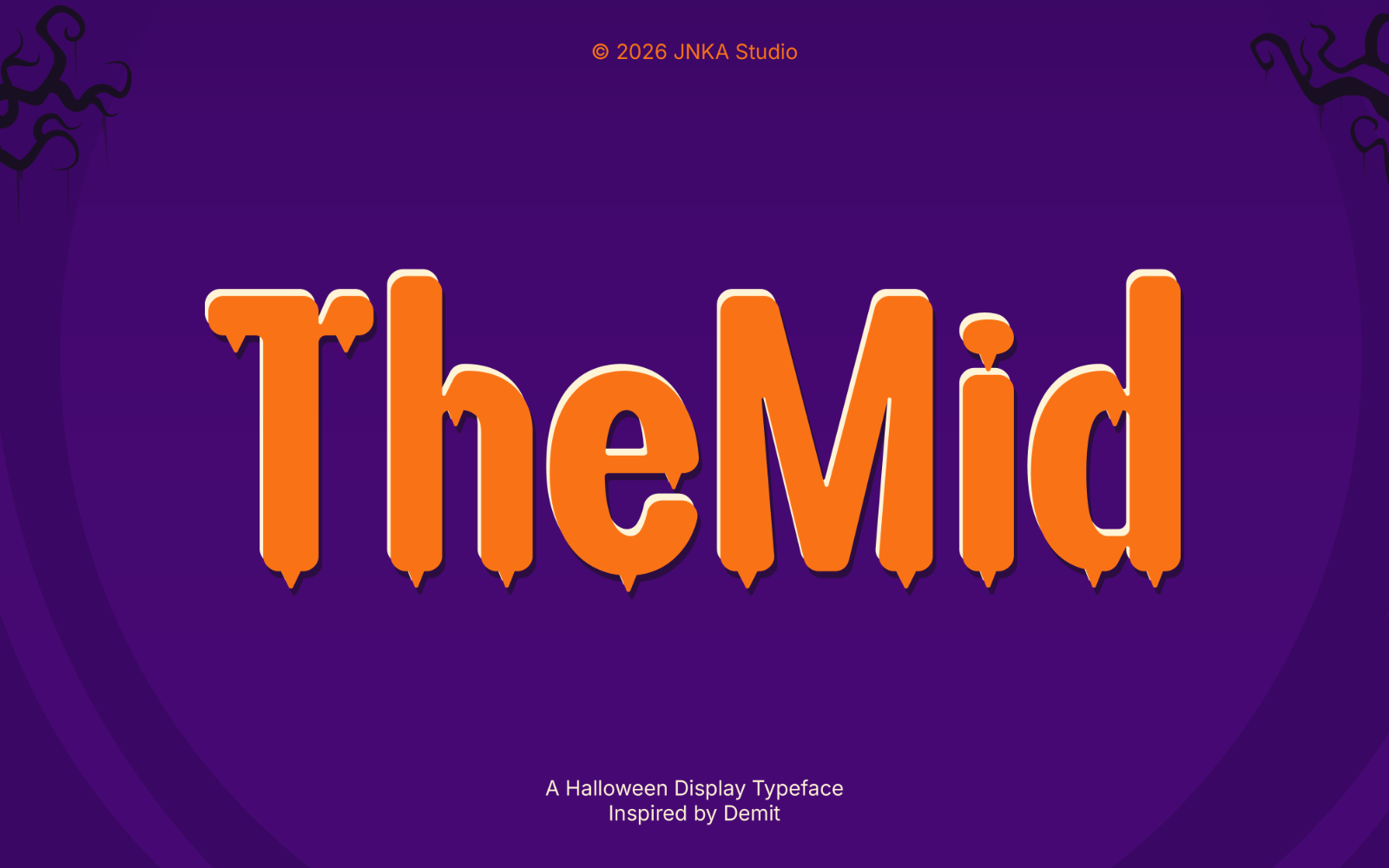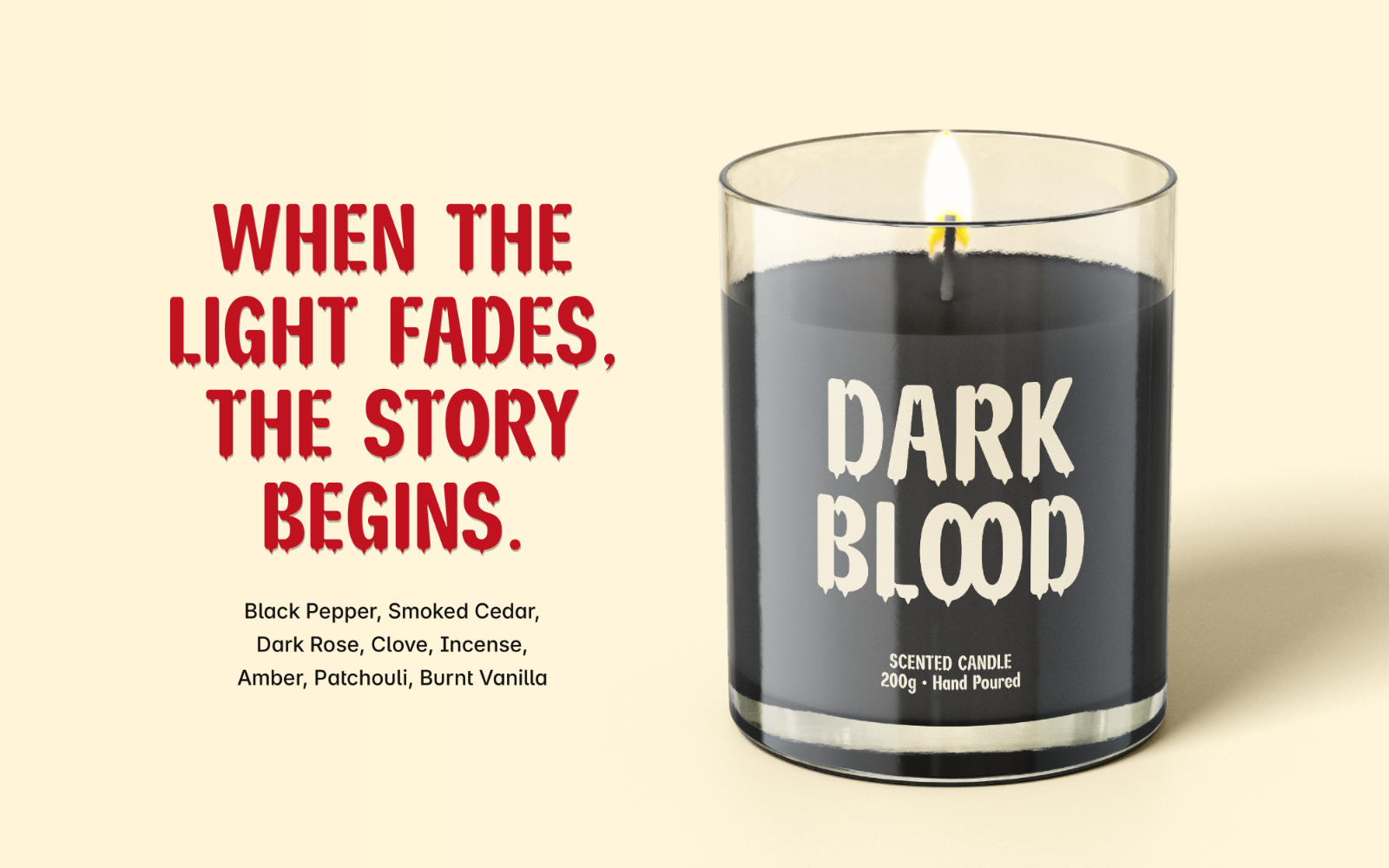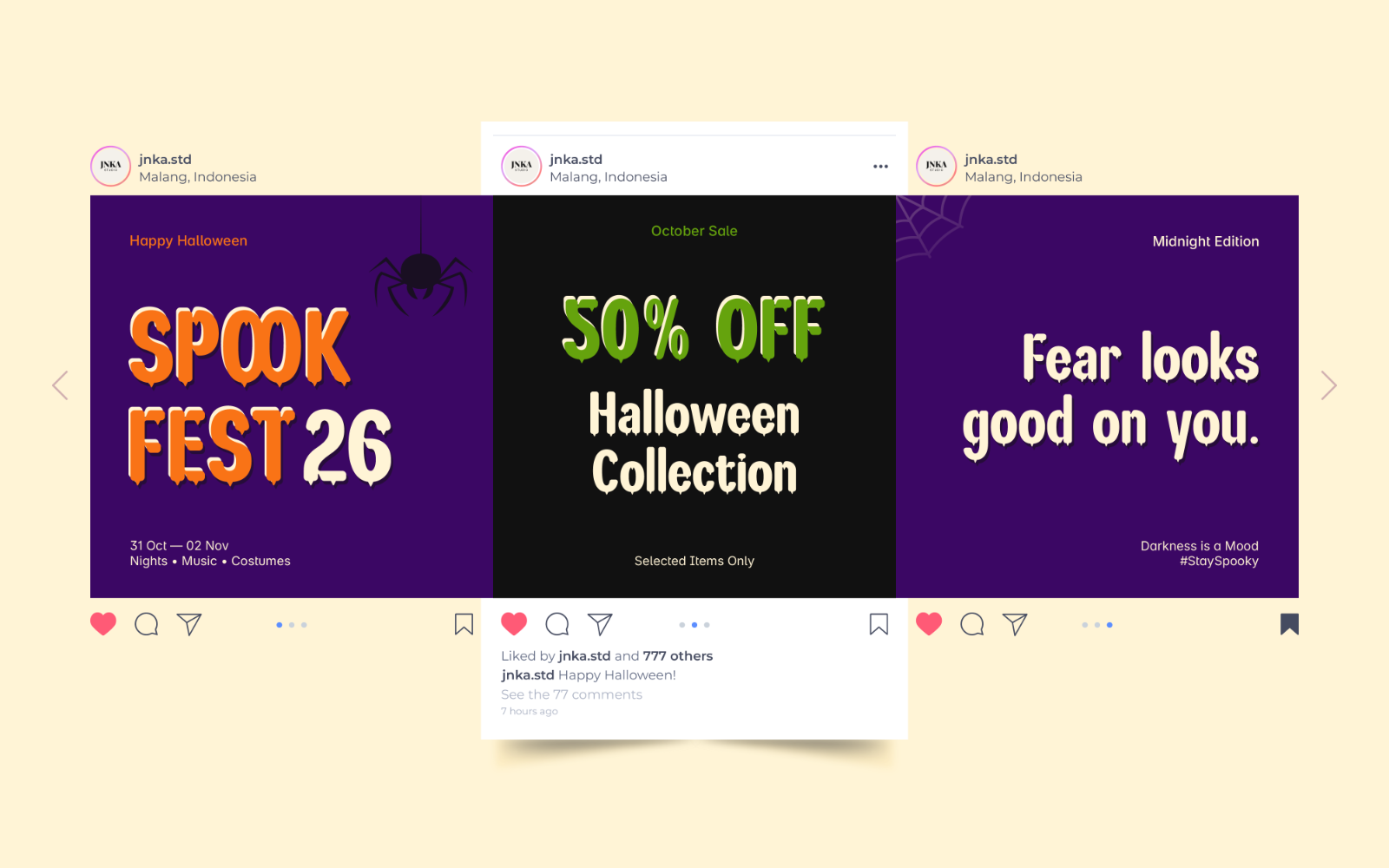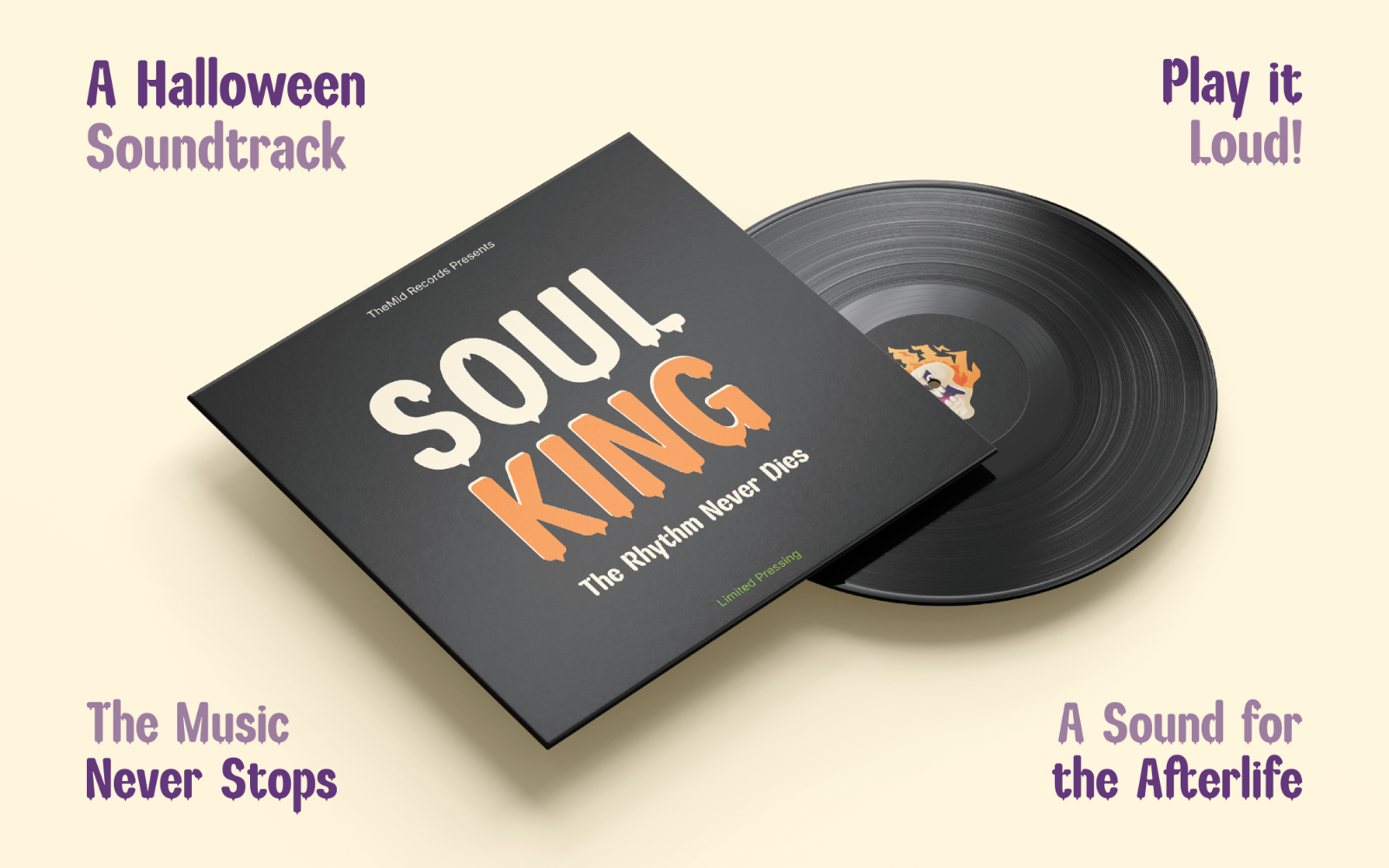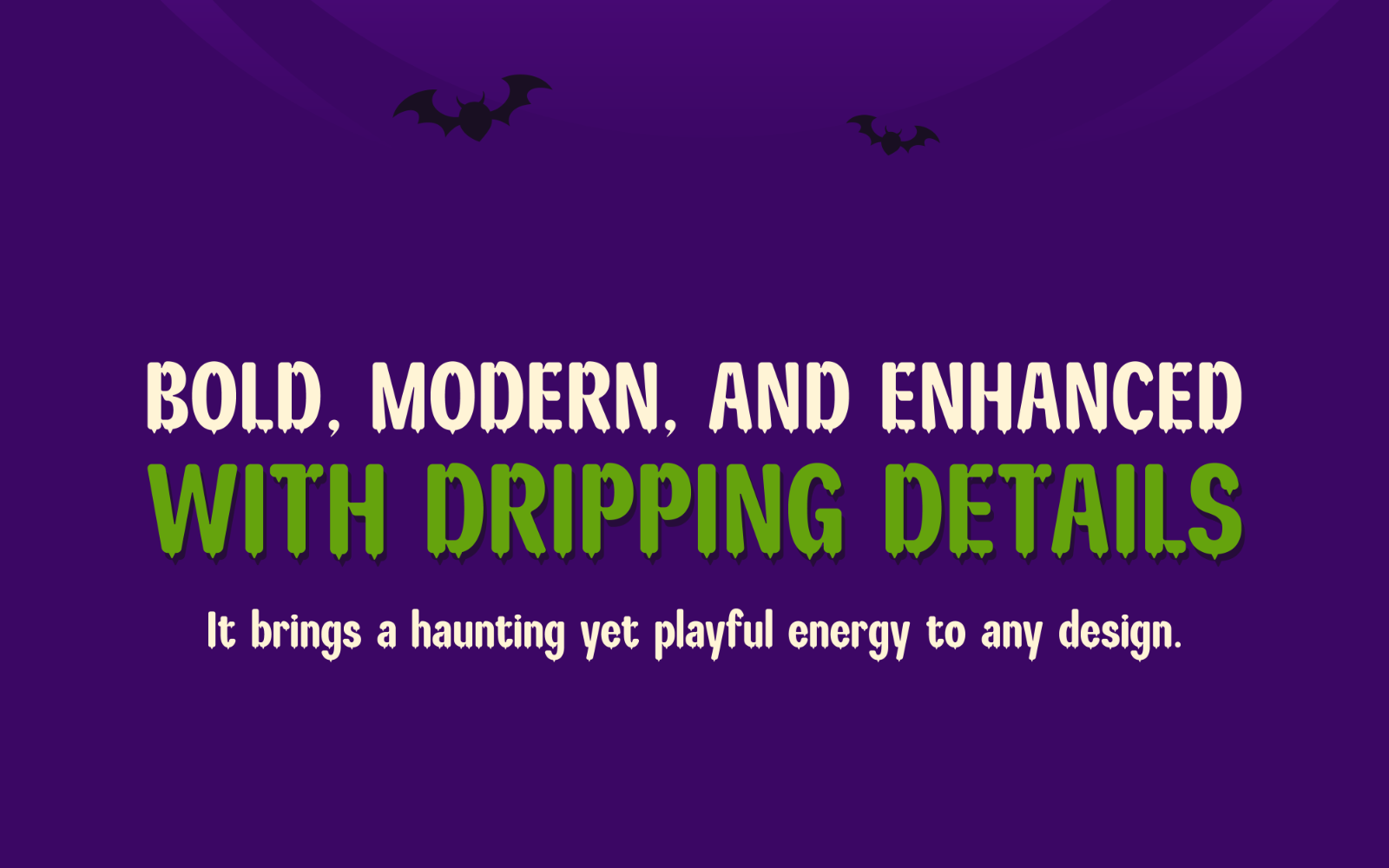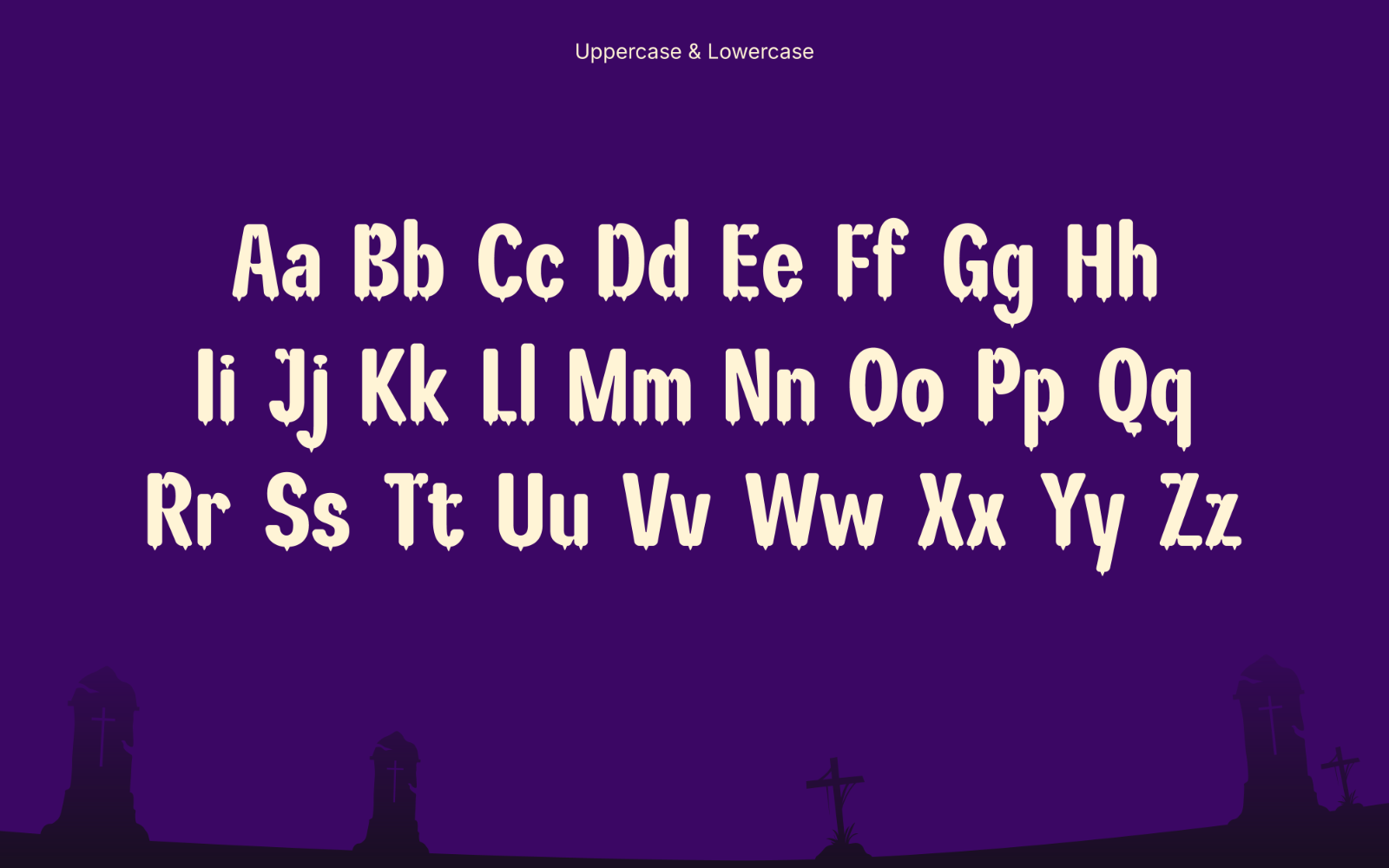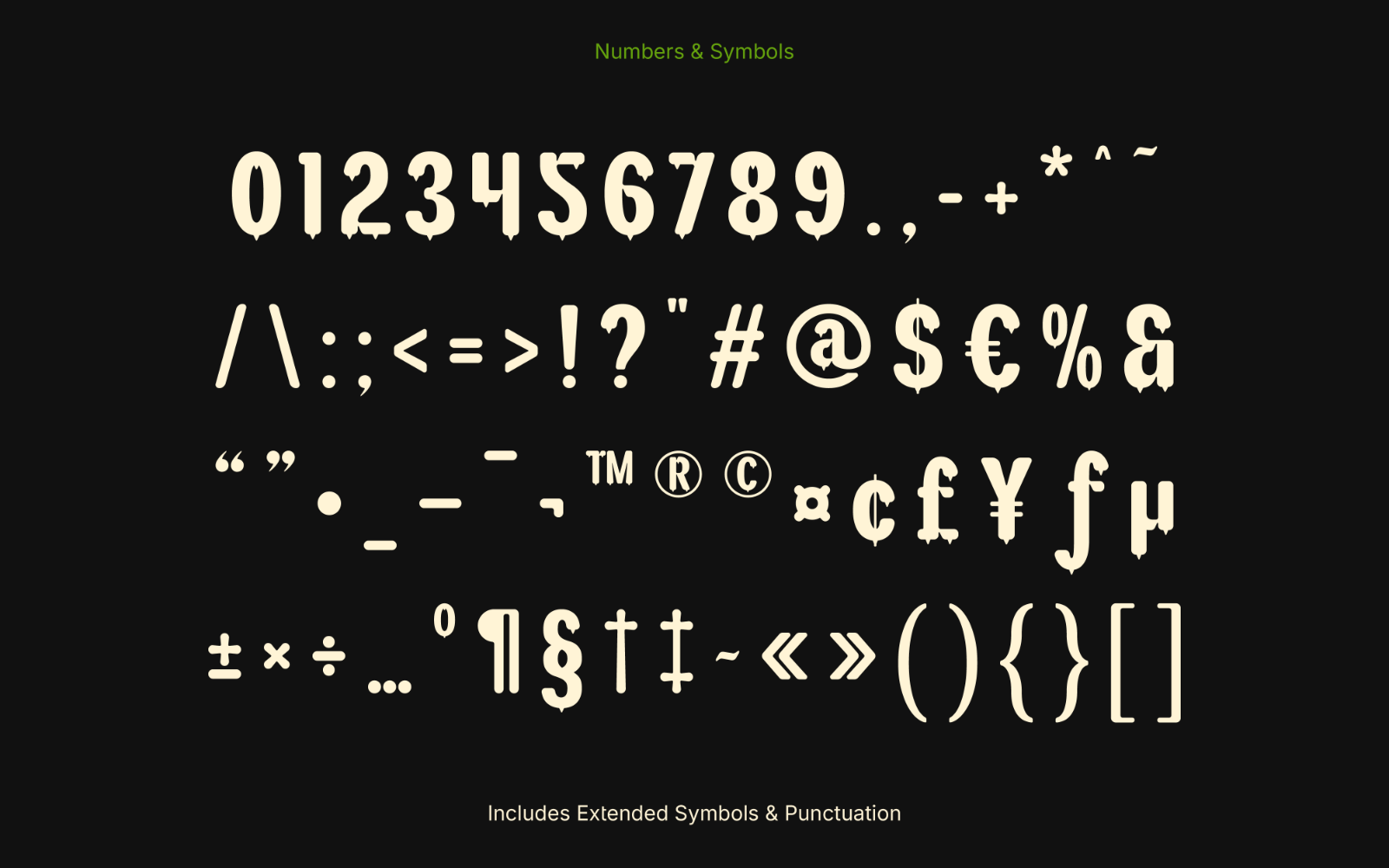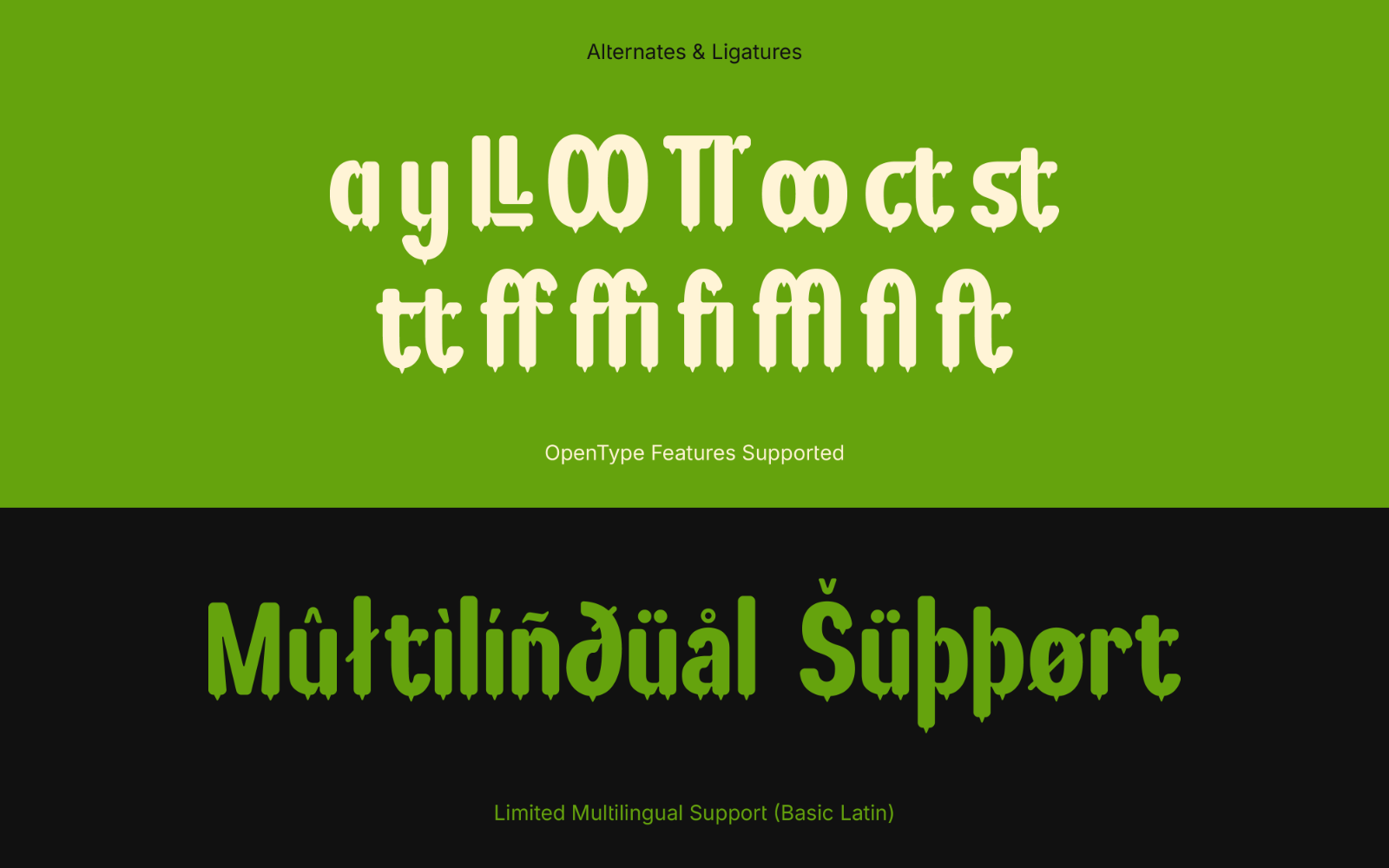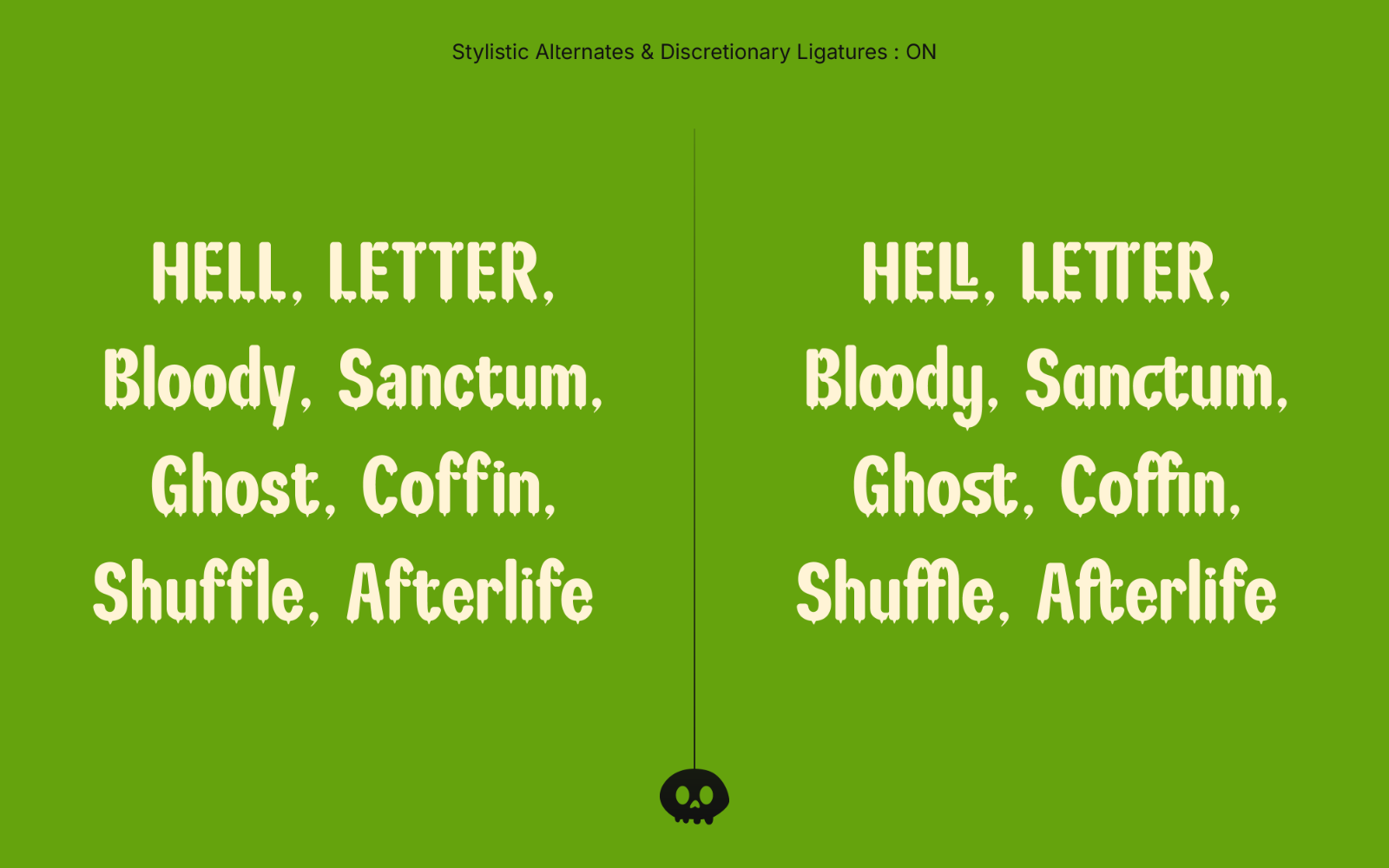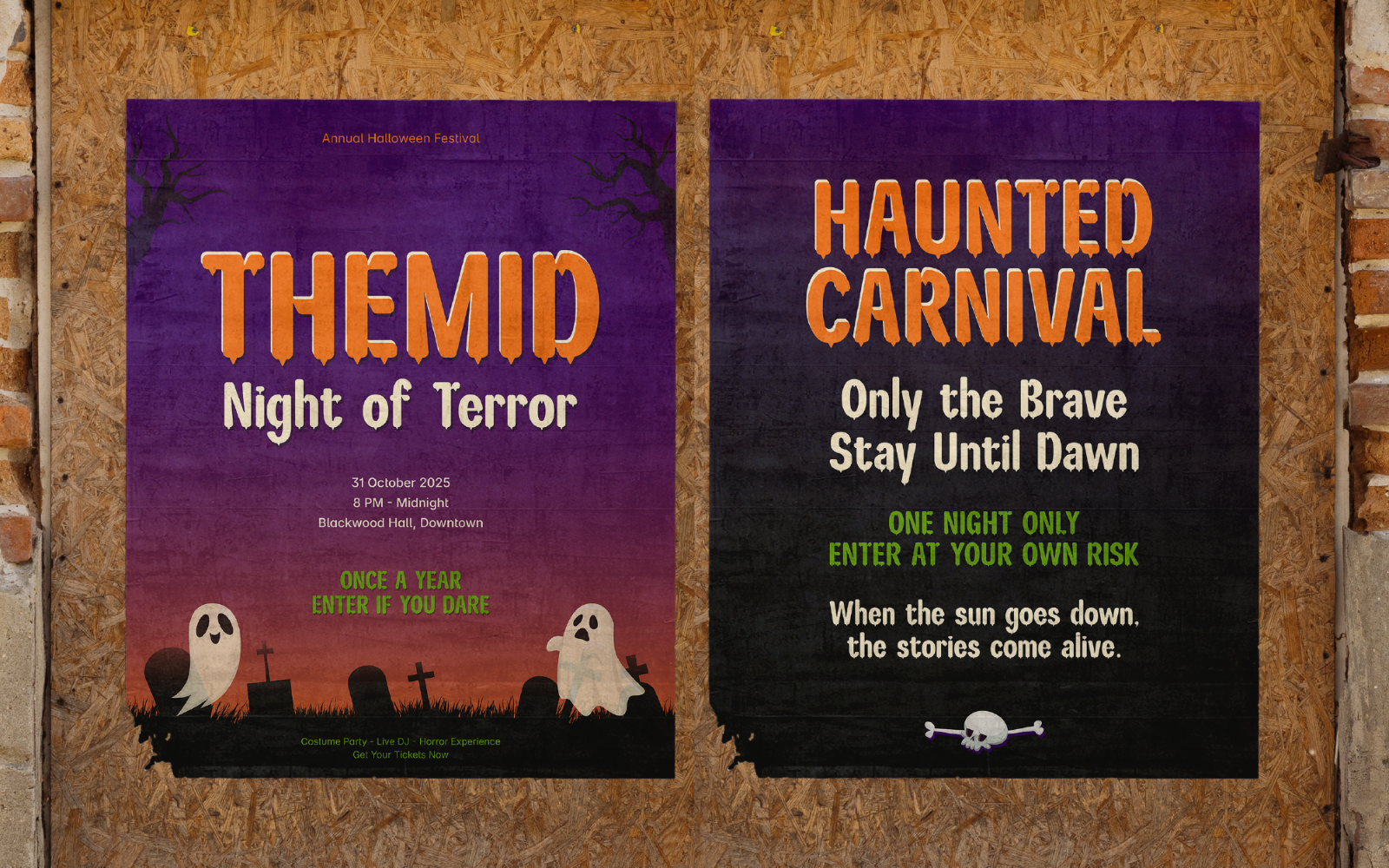
TheMid
Is a bold horror display font inspired by the word “Demit”. Designed with strong letterforms and dripping details, it captures the spirit of Halloween in a modern and striking way. Now available, let your designs haunt the night.
Font Features:
- Uppercase & Lowercase Letters
- Numbers & Standard Punctuation
- Symbols & Special Characters
- Basic Multilingual Support (Latin-based)
- Stylistic Alternates
- Standard & Decorative Ligatures
- Fully PUA Encoded Characters
- Carefully Adjusted Kerning
- Approx. 245 Glyphs
- OpenType Features